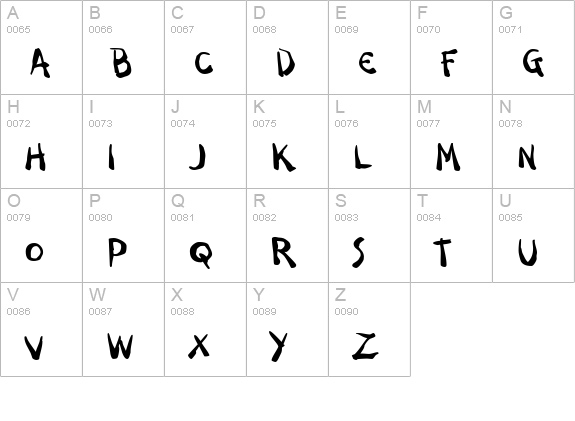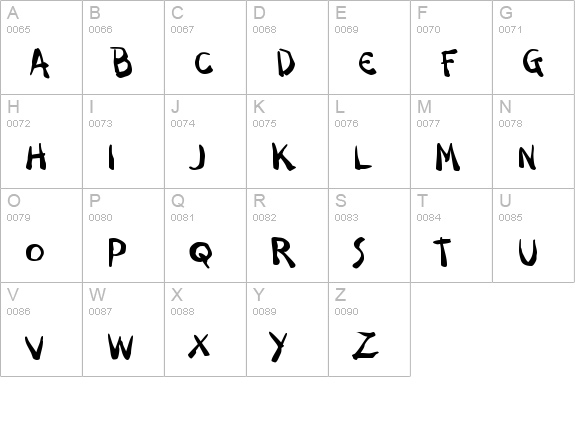
Dark Half BTN Font Details
Dark Half BTN is a striking and bold display font that exudes an aura of mystery and sophistication. Its edgy design features sharp angles and intricate details that make it perfect for creating eye-catching headers, titles, and logos. This font commands attention and adds a touch of drama to any project. The best part is that Dark Half BTN is completely free to download at FontsMarket.com. This means you can easily access this unique font and use it in your designs without any cost. Whether you're working on a poster, website, or branding project, Dark Half BTN is a versatile font that will make a powerful statement. Download it today and unleash its dark charm in your creative endeavors.